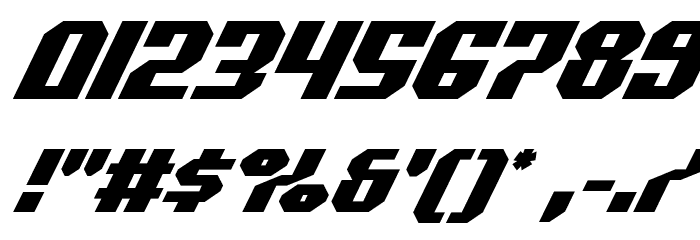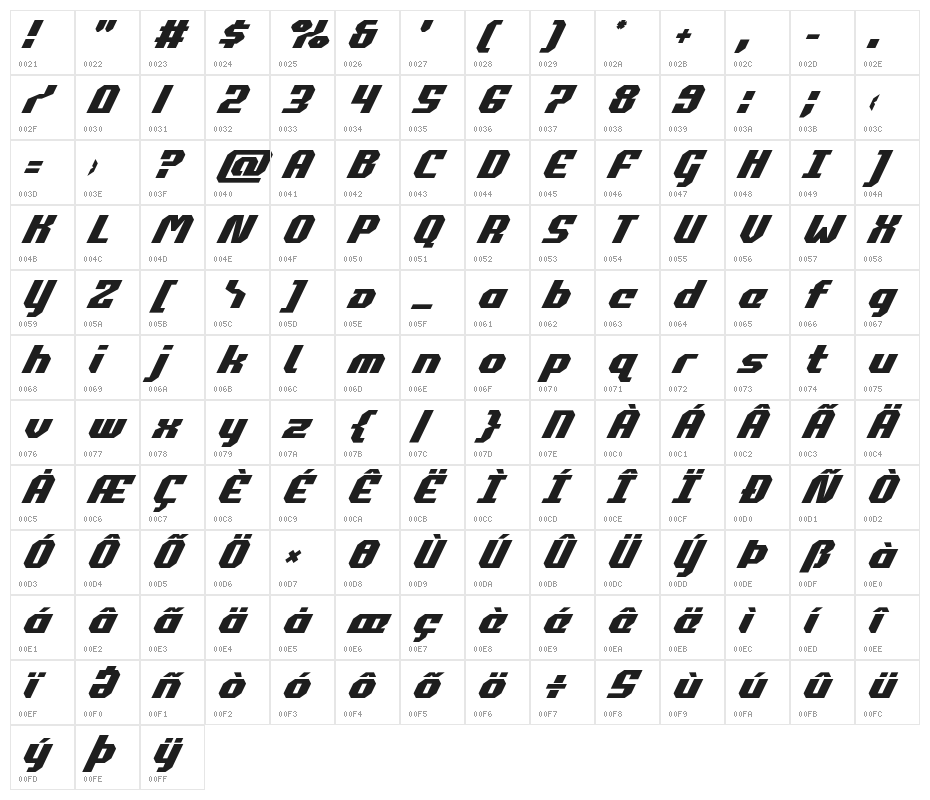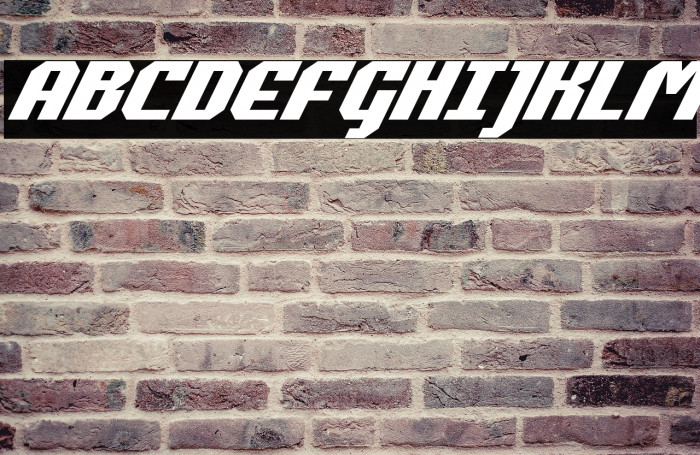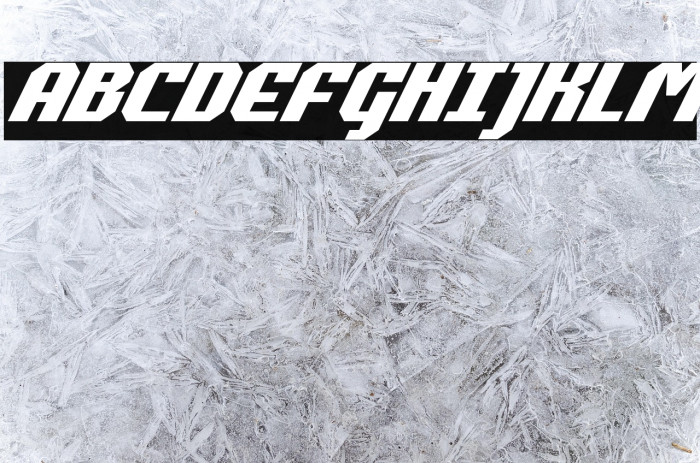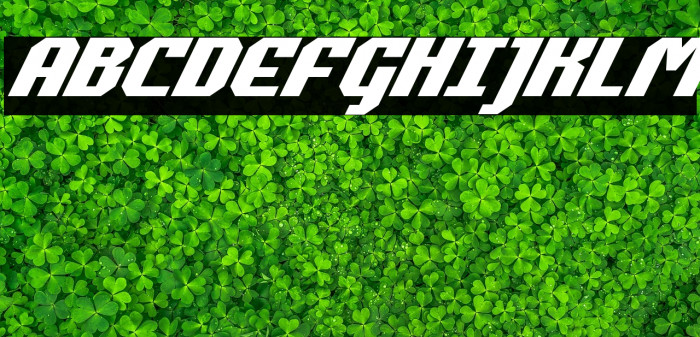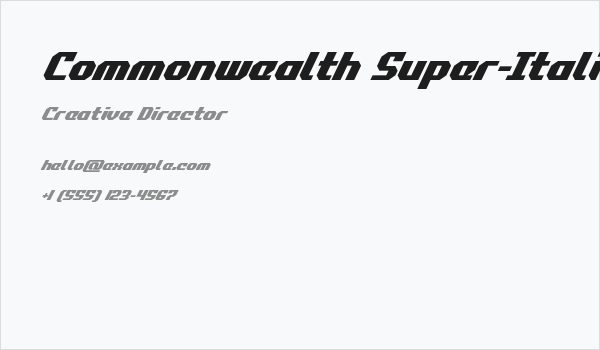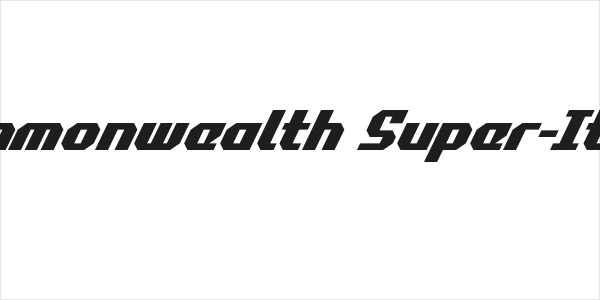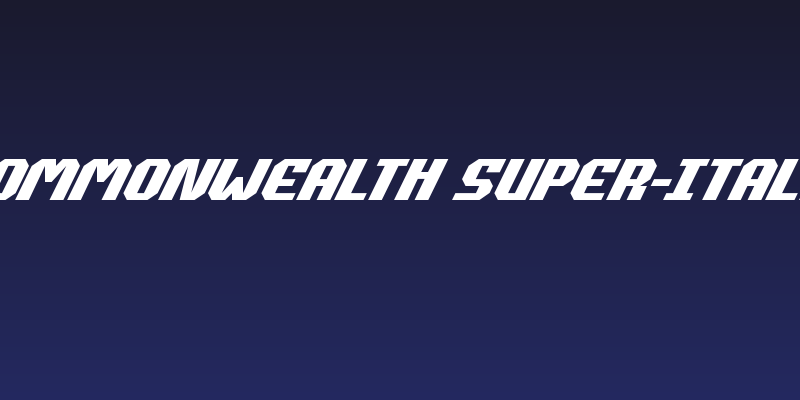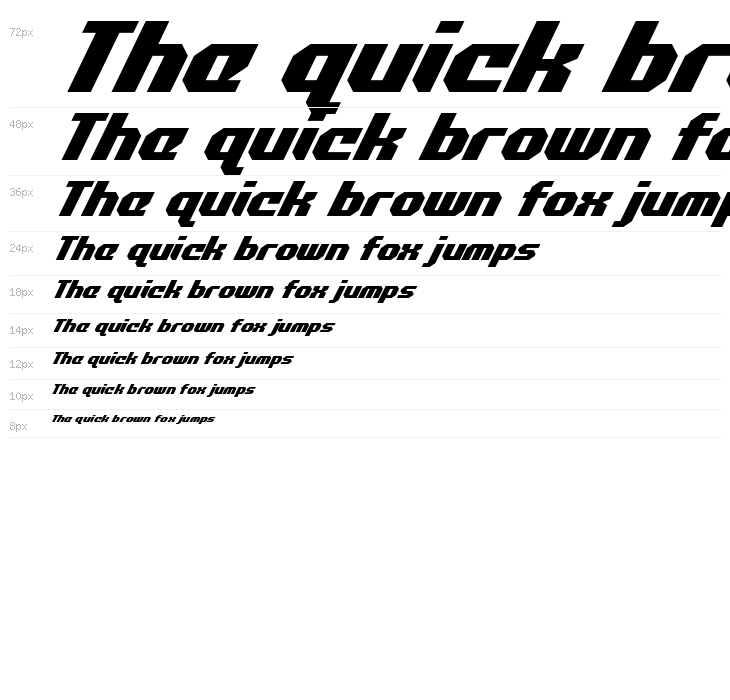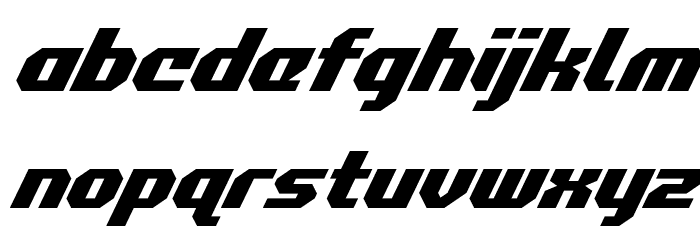
Commonwealth Super-Italic Font
Commonwealth Super-Italic Description
This font features a bold, italicized style with a strong geometric influence. The characters are sharply angled, giving a sense of movement and dynamism. The uppercase and lowercase letters maintain a consistent slant, enhancing the italic effect. The numbers and special characters follow the same design principles, ensuring uniformity across all glyphs. The font's bold weight and angular design make it highly visible and impactful, suitable for attention-grabbing applications. Its modern aesthetic is complemented by a slightly condensed width, which adds to its sleek appearance.
| Proposed Projects | Ideal for sports branding, dynamic posters, modern logos, and edgy editorial design. |